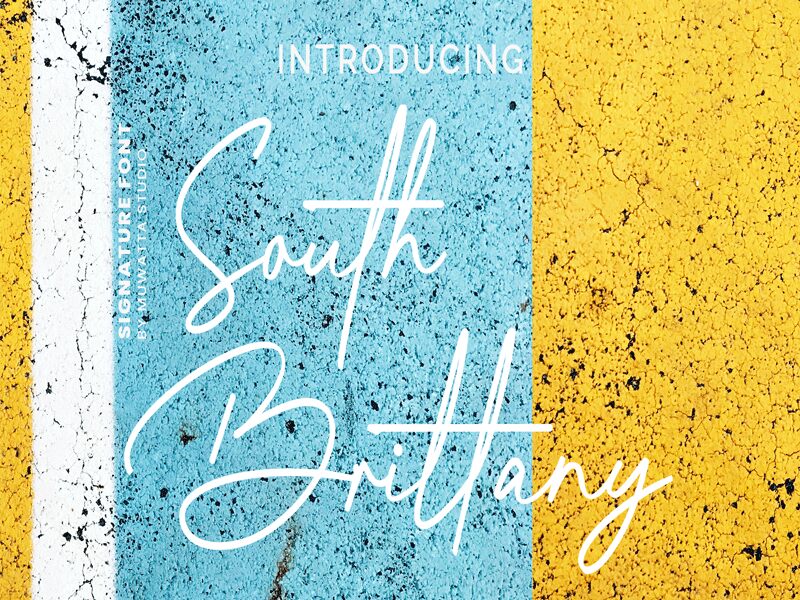
South Brittany
South Brittany font by Muwatta Studio is a free light handwritten script font. Built like a breezy signature, it flows in slim monoline strokes with tall ascenders, airy loops, and a gentle baseline bounce that feels natural, not fussy. The inked texture is crisp rather than brushy, so letterforms stay clean and legible even when scaled down—great when you want elegance without the drama.
Using South Brittany, your mark reads upscale and effortless—think boutique logos, photography watermarks, wedding invites, beauty packaging, social posts, and thank-you cards. This free font shines on spacious layouts where its long strokes can breathe; pair it with a simple grotesk or a light serif for captions, and give it extra tracking at small sizes to keep that graceful rhythm.